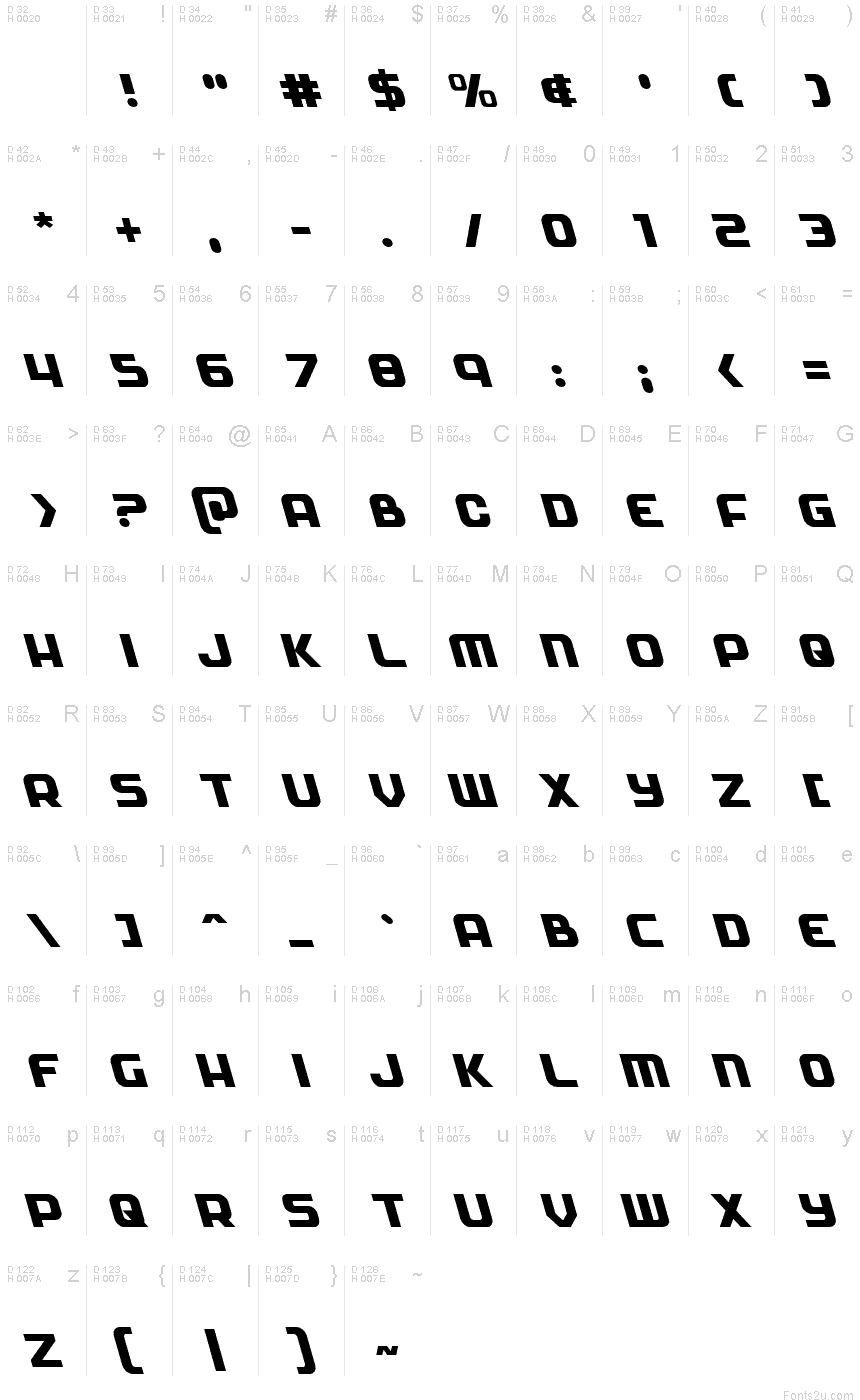
Soldier Leftalic by Daniel Zadorozny of Iconian Fonts is a free decorative display font with a forceful backward slant and broad, tightly fitted letters. Its squared curves, clipped corners, and deep geometric cutouts give the lettering a machine-made look with traces of military stenciling.
Science-fiction and action themes suit its armored construction, making it useful for game graphics, movie posters, and music merchandise. Sports branding can also draw on the speed suggested by the reverse lean and compressed joins. It is most convincing as a poster title styled like engineered signage rather than ordinary type.
Soldier Leftalic